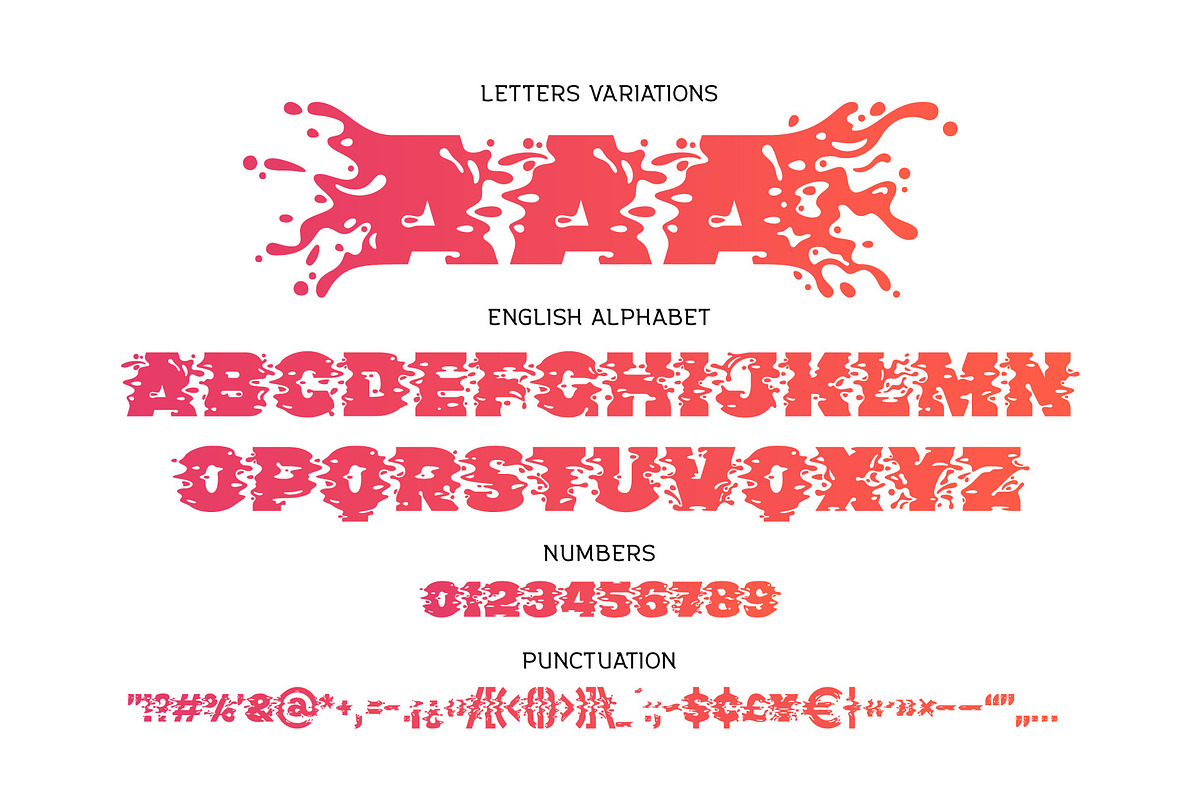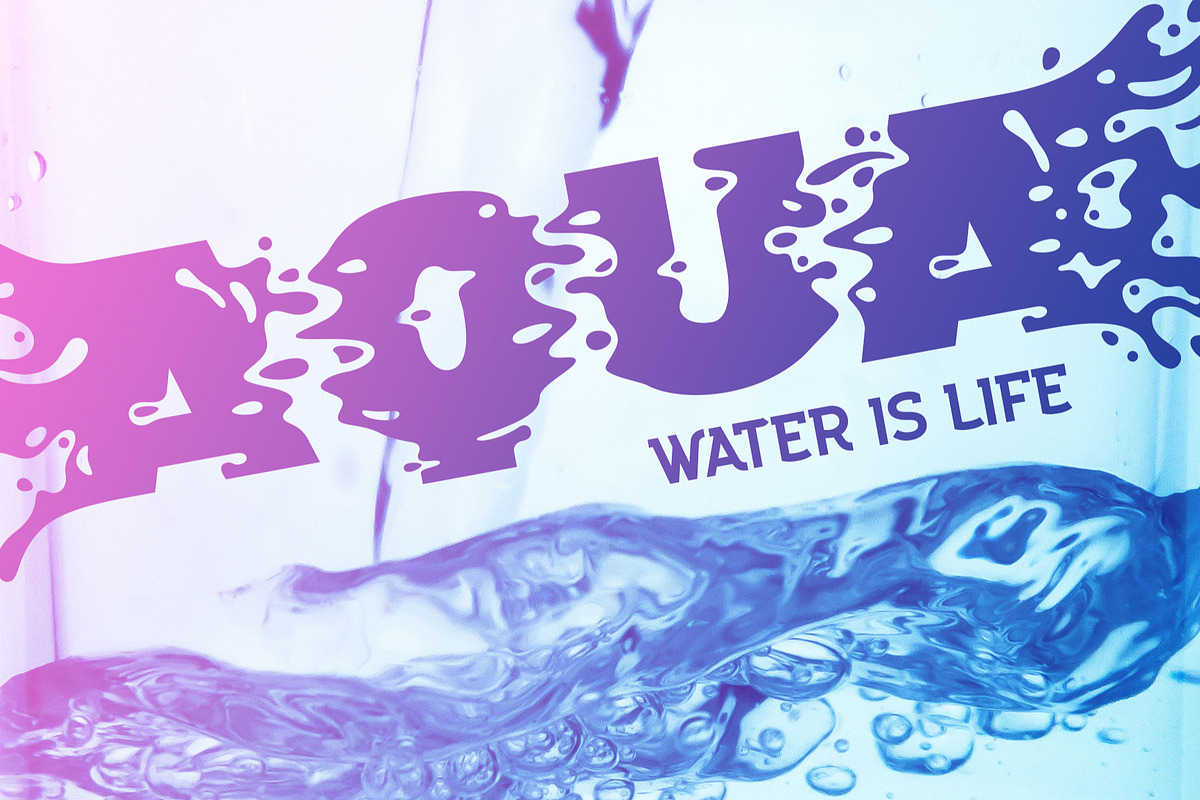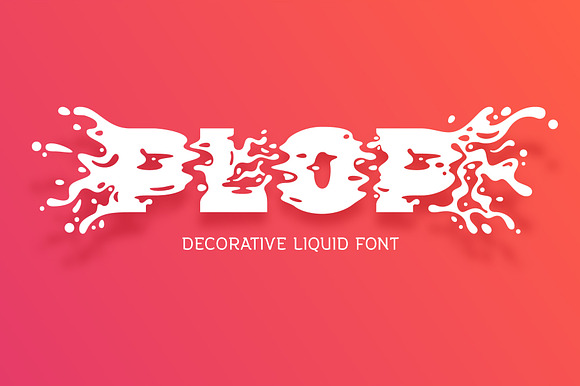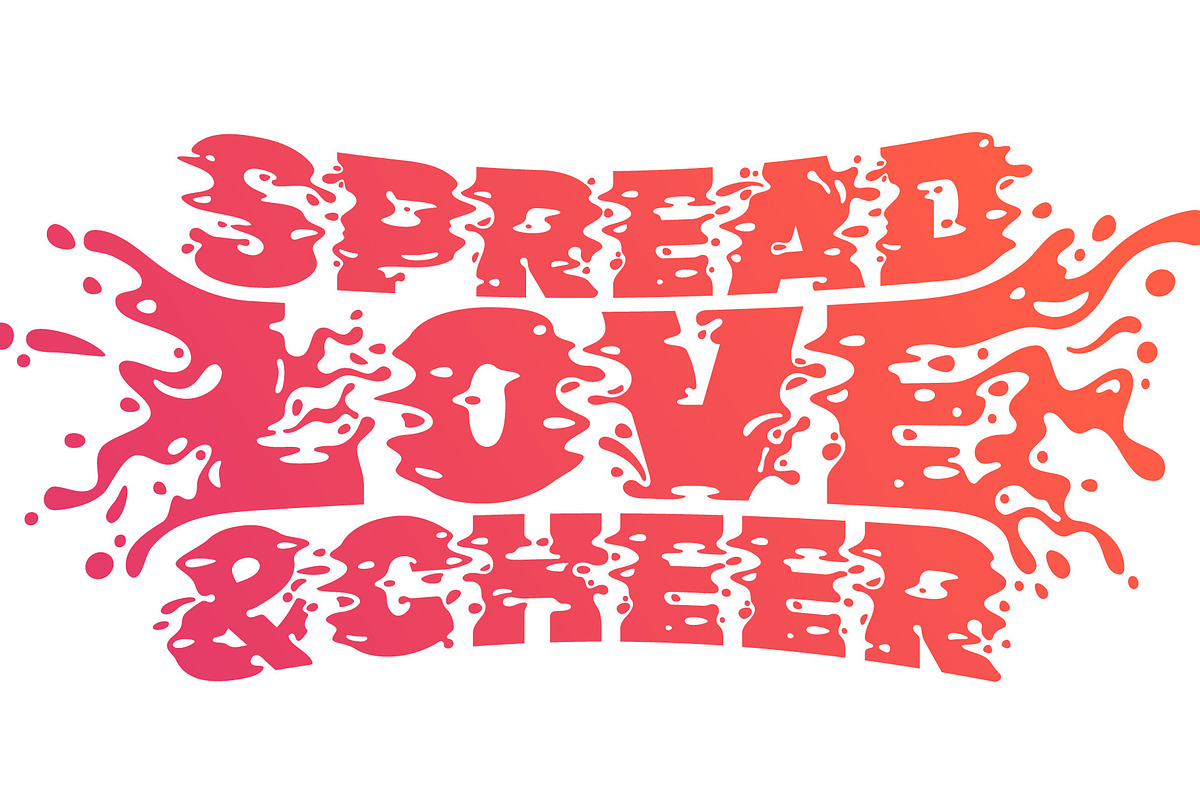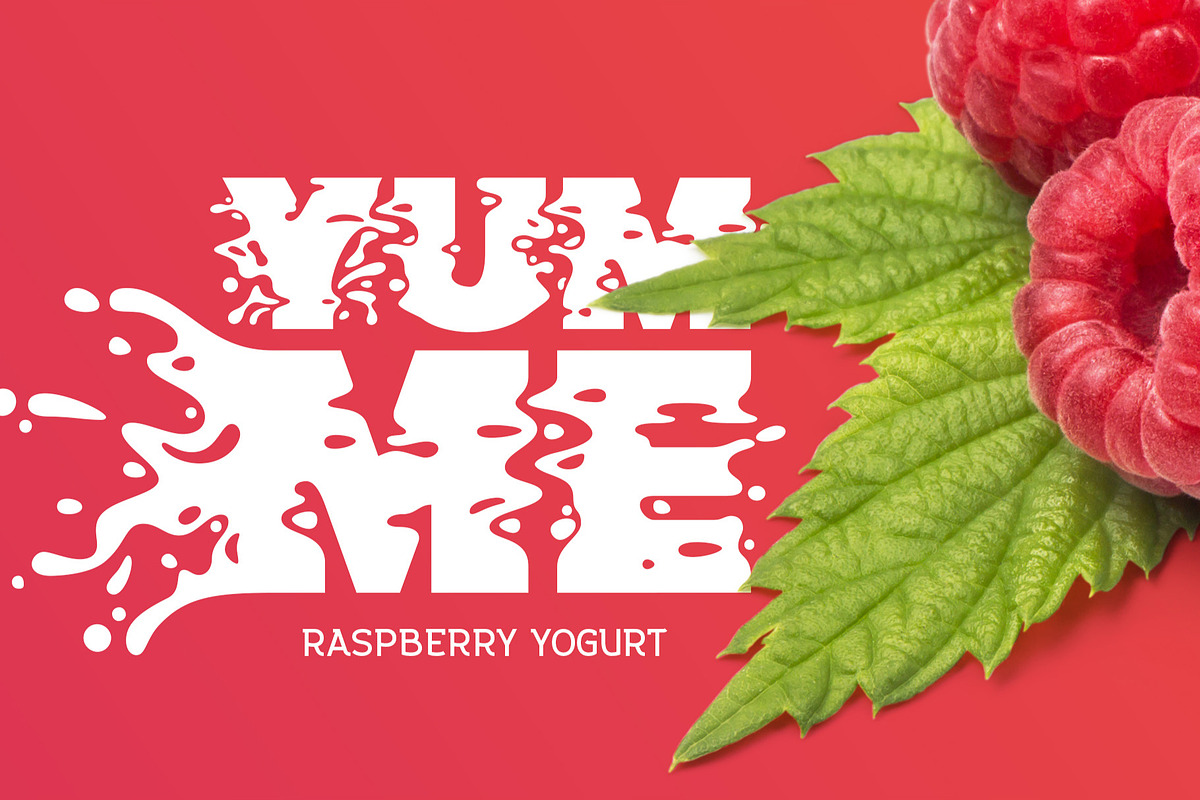
Plop liquid font
Presenting a decorative liquid font Plop. It's a splashing funny typeface perfect for authentique lettering composition.To use a bigger splash letter just type a capital letter. Same way the last letter in word will be automatically replaced to correct glyph using OpenType features. Both sides splashes are available for all letters including multilingual characters. Otf & Ttf font formats are included.
- Both sides splashes are available for all letters including multilingual characters.
Why Plop liquid font is worth a look
Plop liquid font by Gleb Guralnyk fits naturally into Branding, posters, packaging, typography.